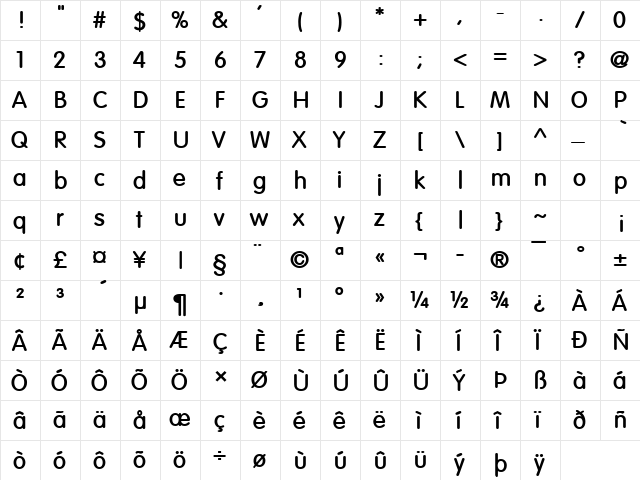
Vogel Bold
Design Context for Vogel Typeface
Vogel takes a measured approach to typography — its balanced proportions and neutral character make it a reliable workhorse for both digital and print work. The heavy weight commands attention and anchors typographic hierarchies.